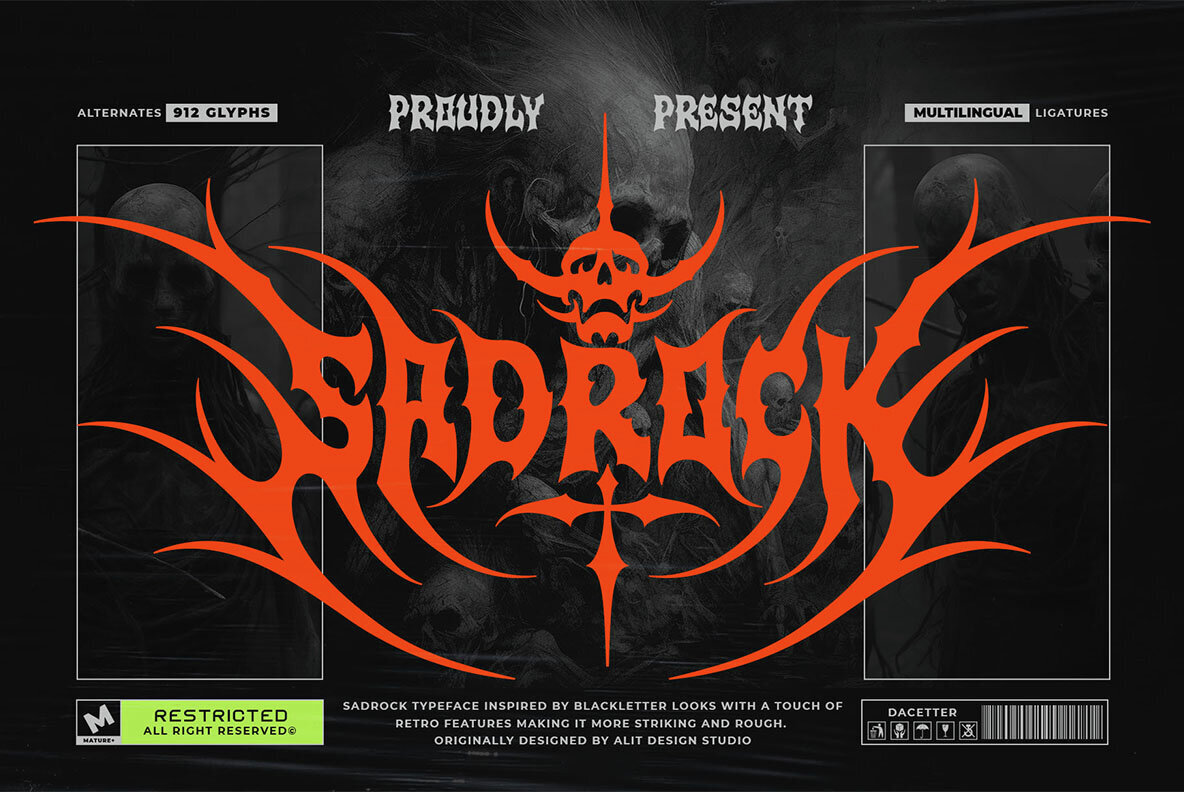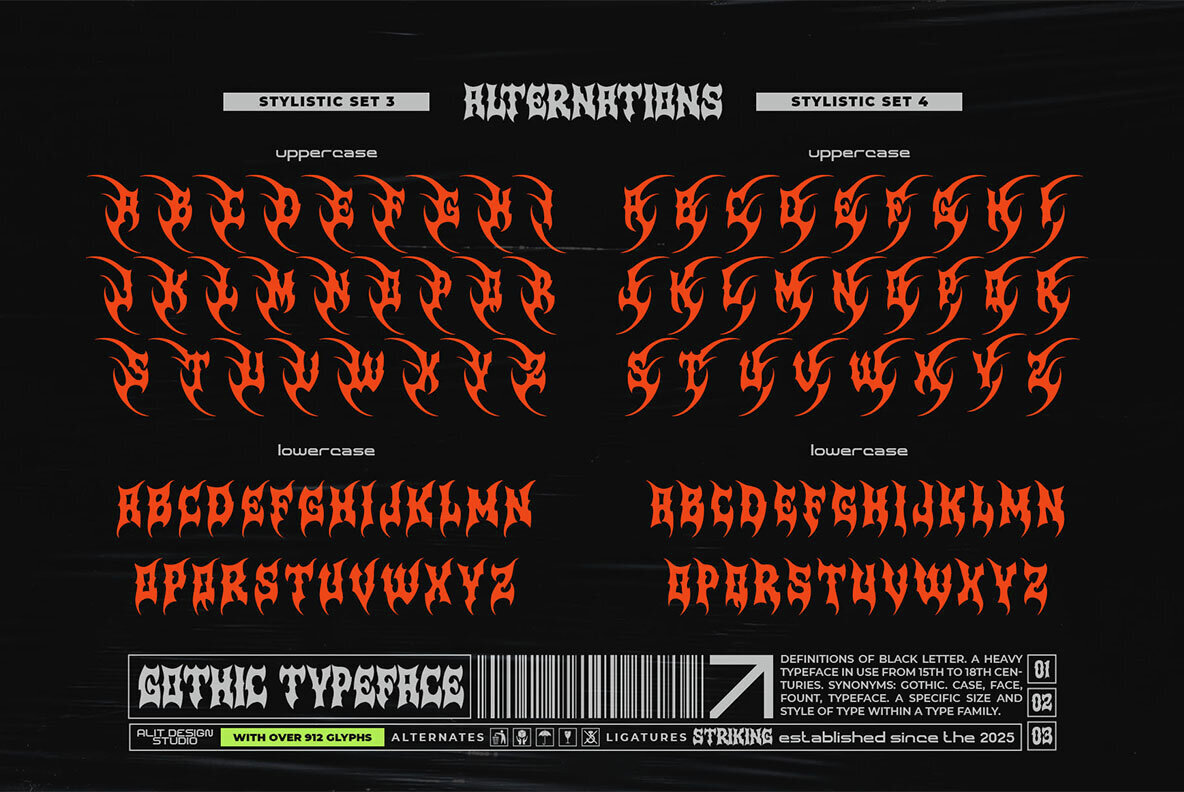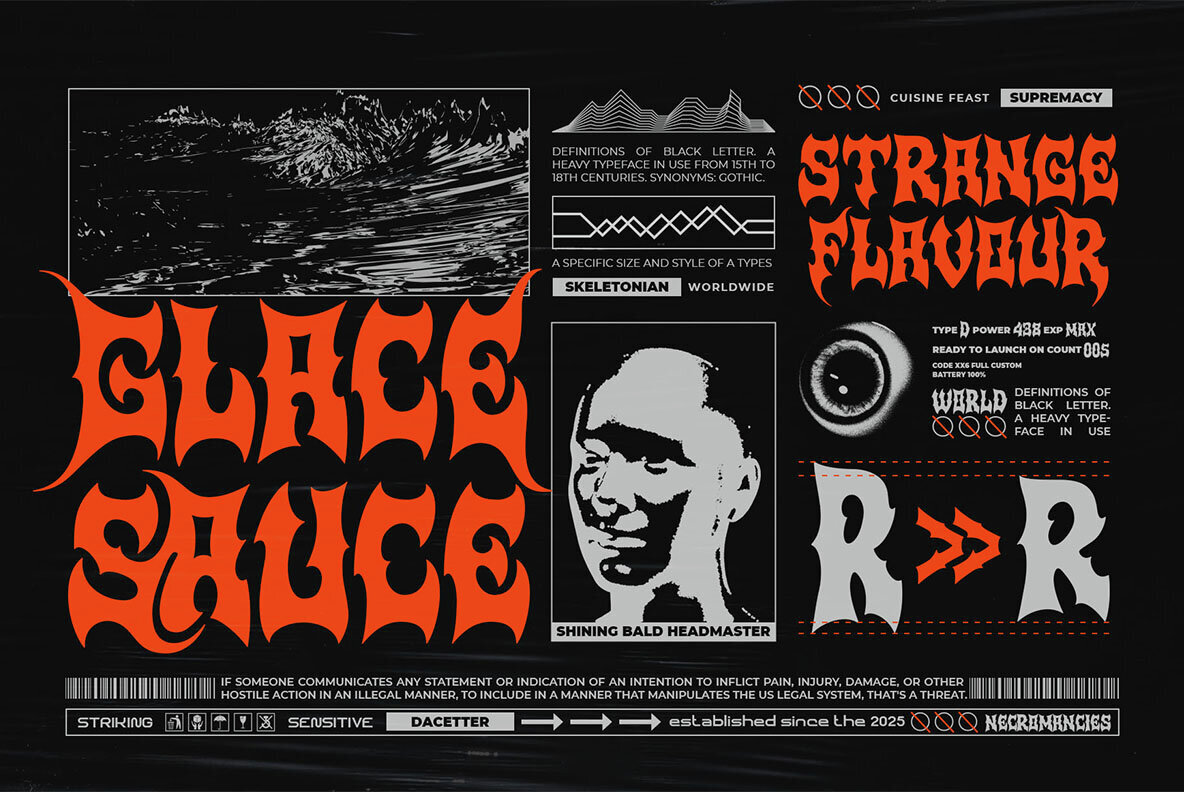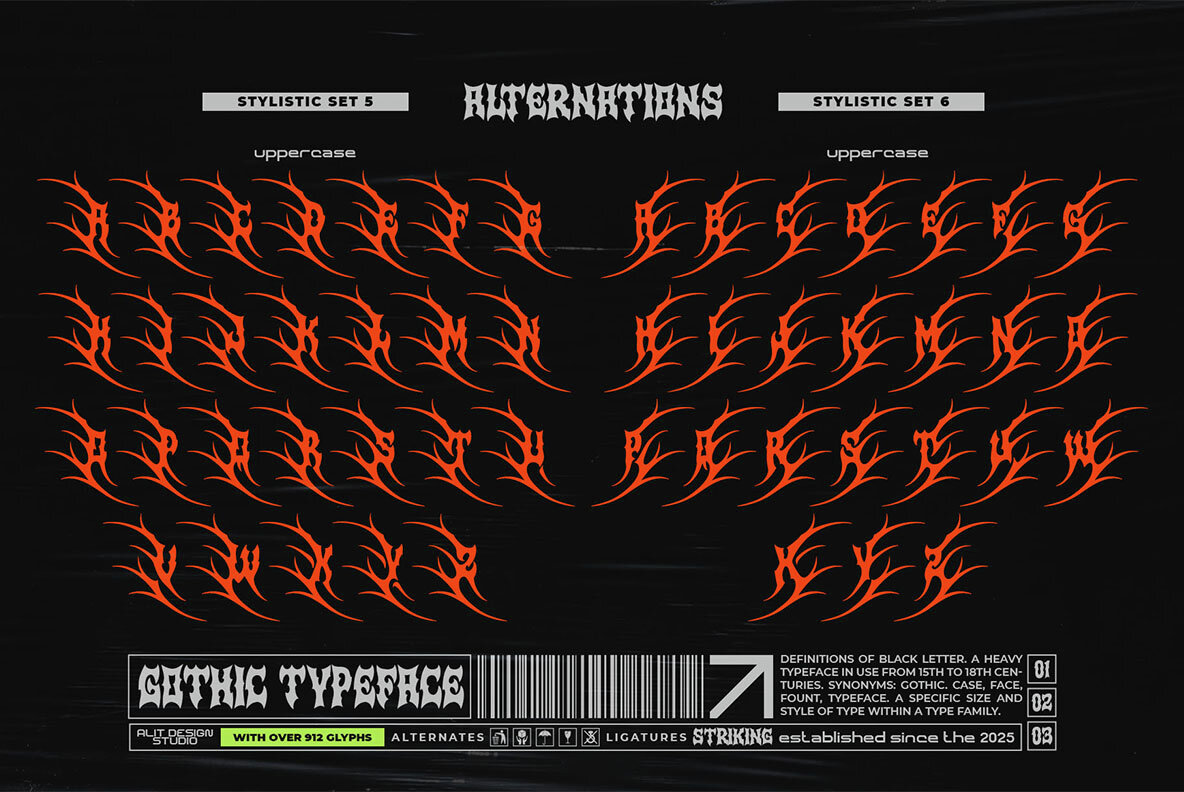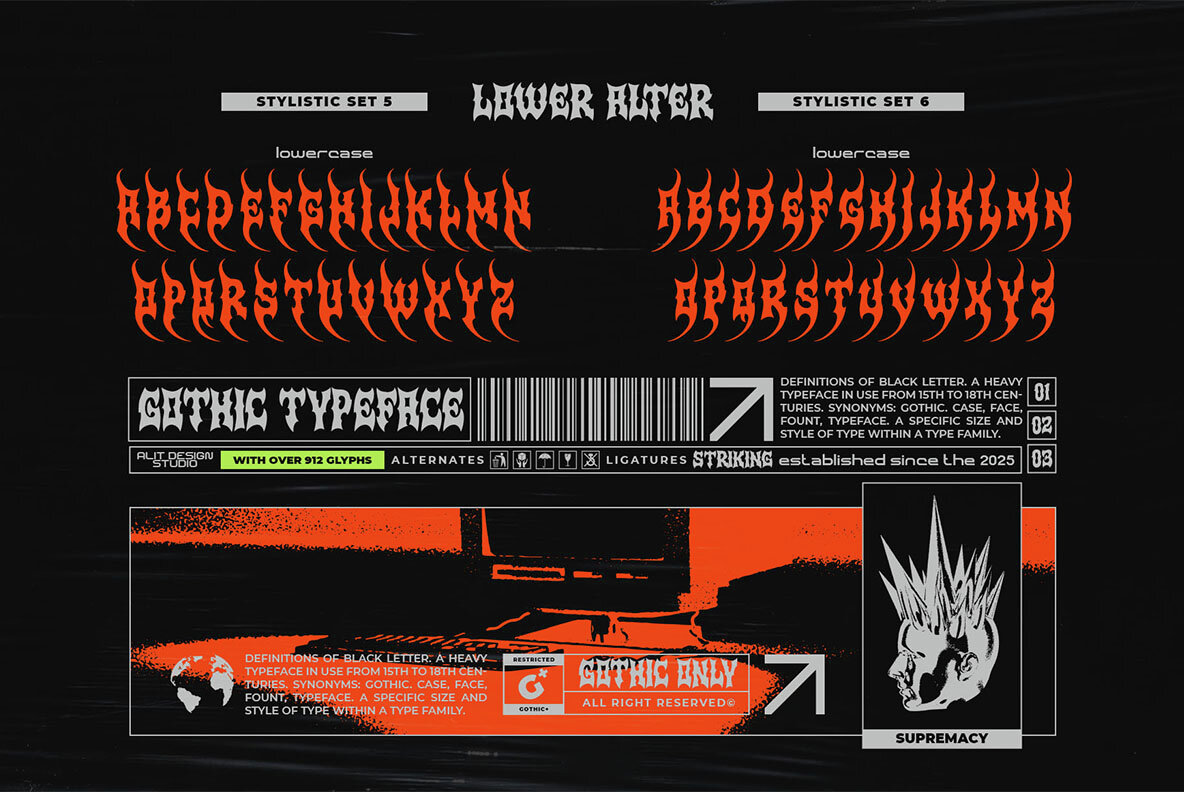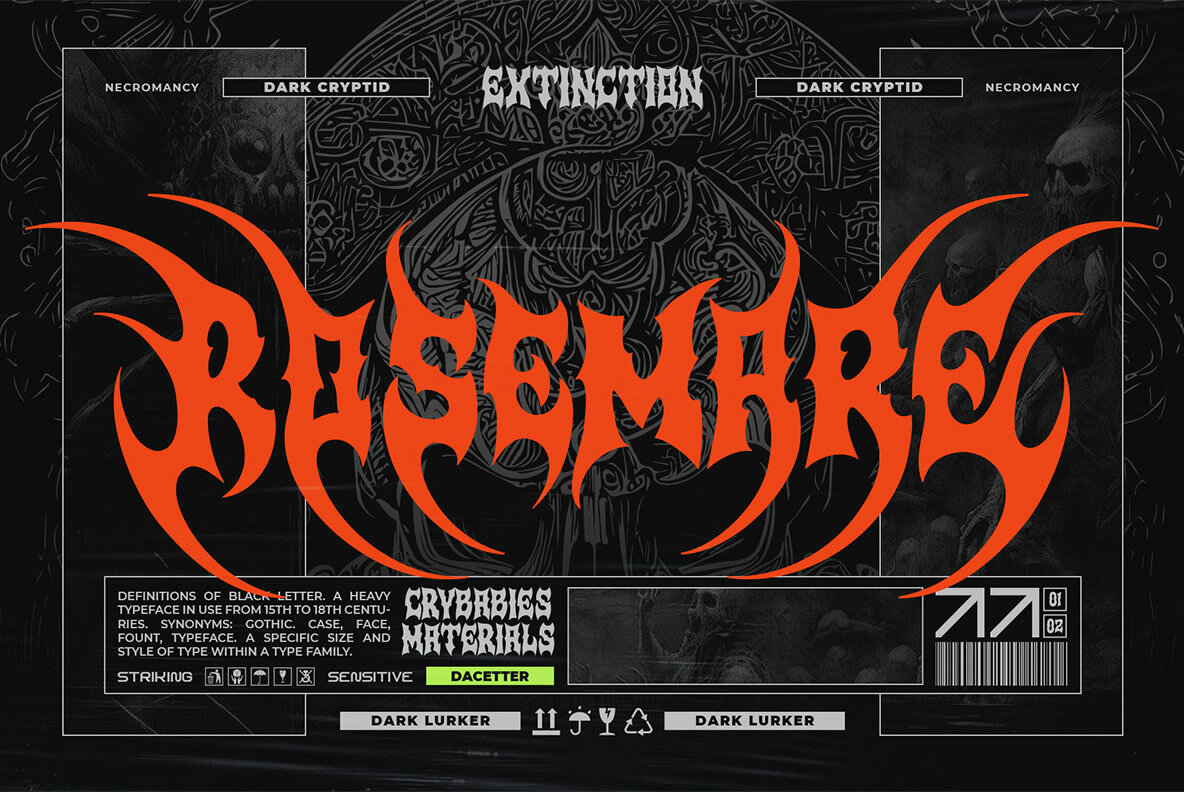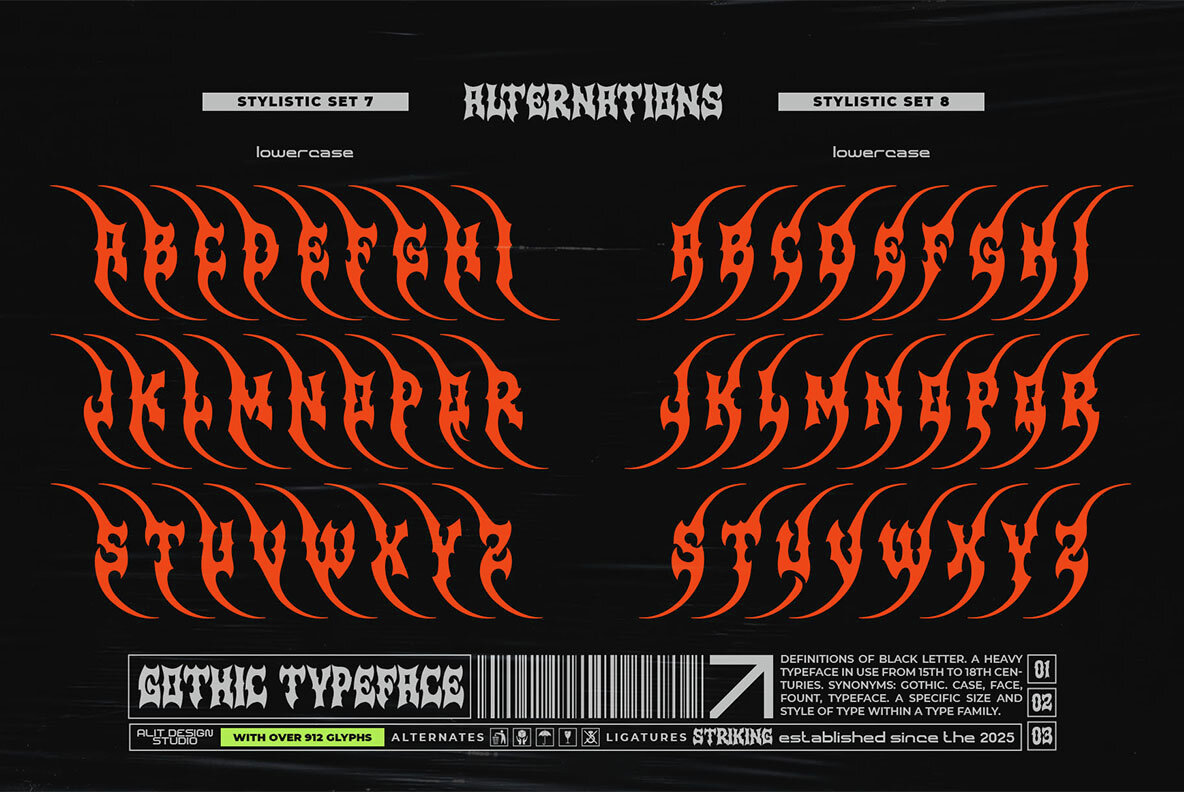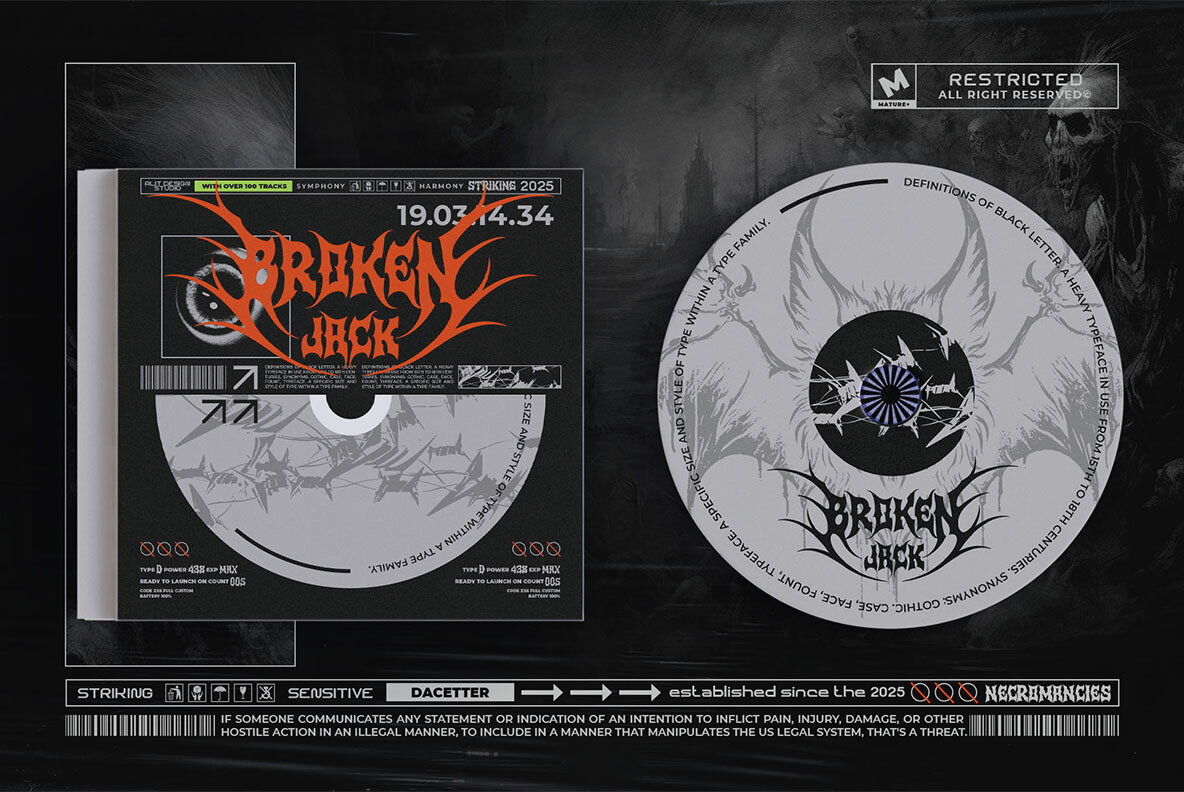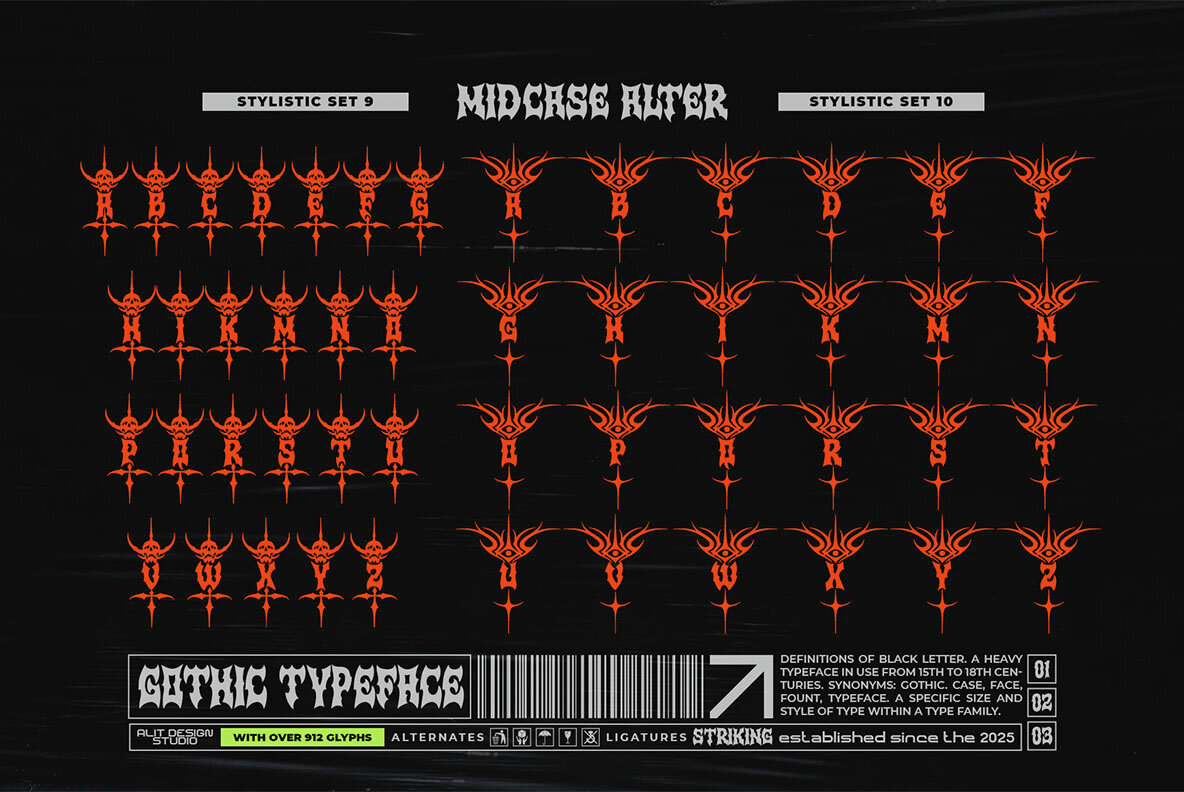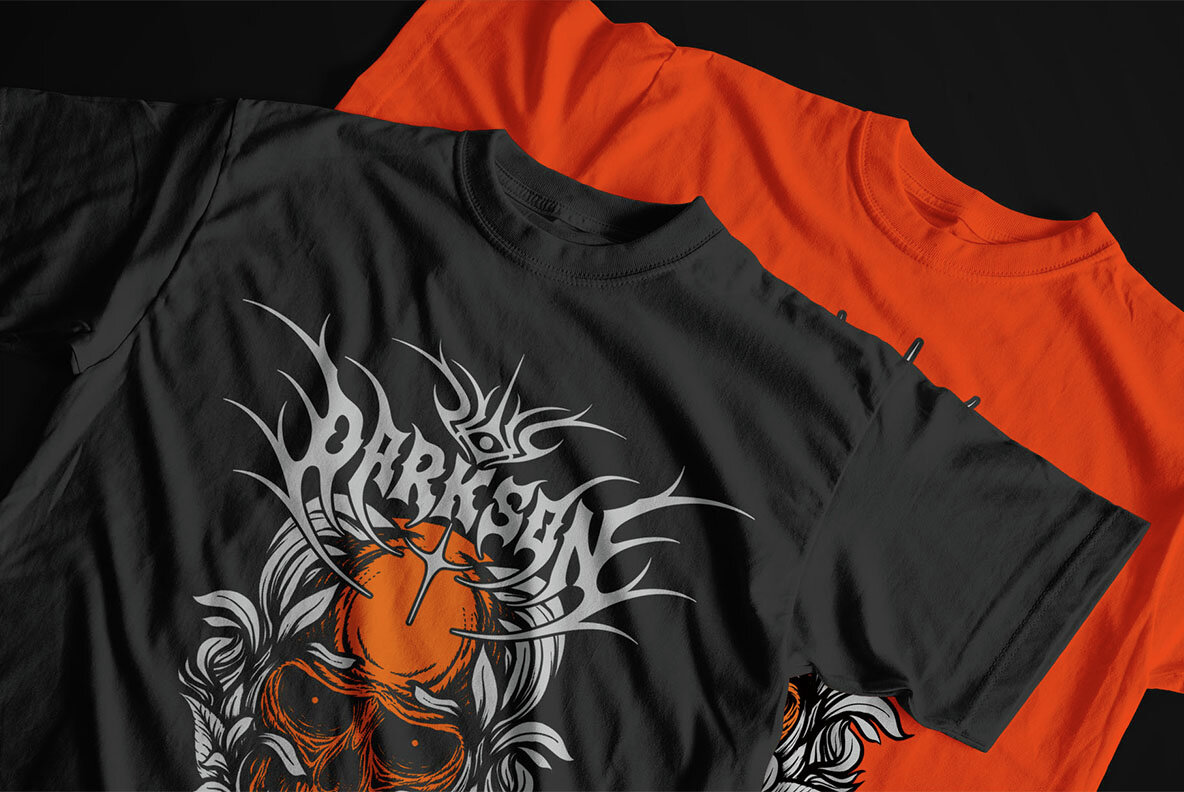
Sad Rock Font
Sad Rock Regular
Sad Rock Typeface delivers a bold and dark aesthetic, merging the fierce energy of metal music with the elegance of blackletter typography. Designed for those seeking intensity in their creative projects, this typeface features sharp and thorny details while maintaining readability. Perfect for band logos, album covers, posters, clothing brands, tattoos, and more, Sad Rock captures the spirit of heavy metal and gothic styles, providing an uncompromising typographic presence. Crafted with a strong letter body, Sad Rock is both bold and balanced. Each letter is adorned with spikes, creating a fierce appearance ideal for metal, gothic, and extreme visual themes. This typeface draws inspiration from the raw energy of metal band logos and retro gothic influences, designed to make a statement with strength and aggression. Choose Sad Rock Typeface to infuse your designs with metal, darkness, and raw energy. Elevate your typography with power, attitude, and rebellion—get Sad Rock today.Sad Rock Typeface: Metal Meets Blackletter
Key Features of Sad Rock Typeface:
Why Choose Sad Rock?